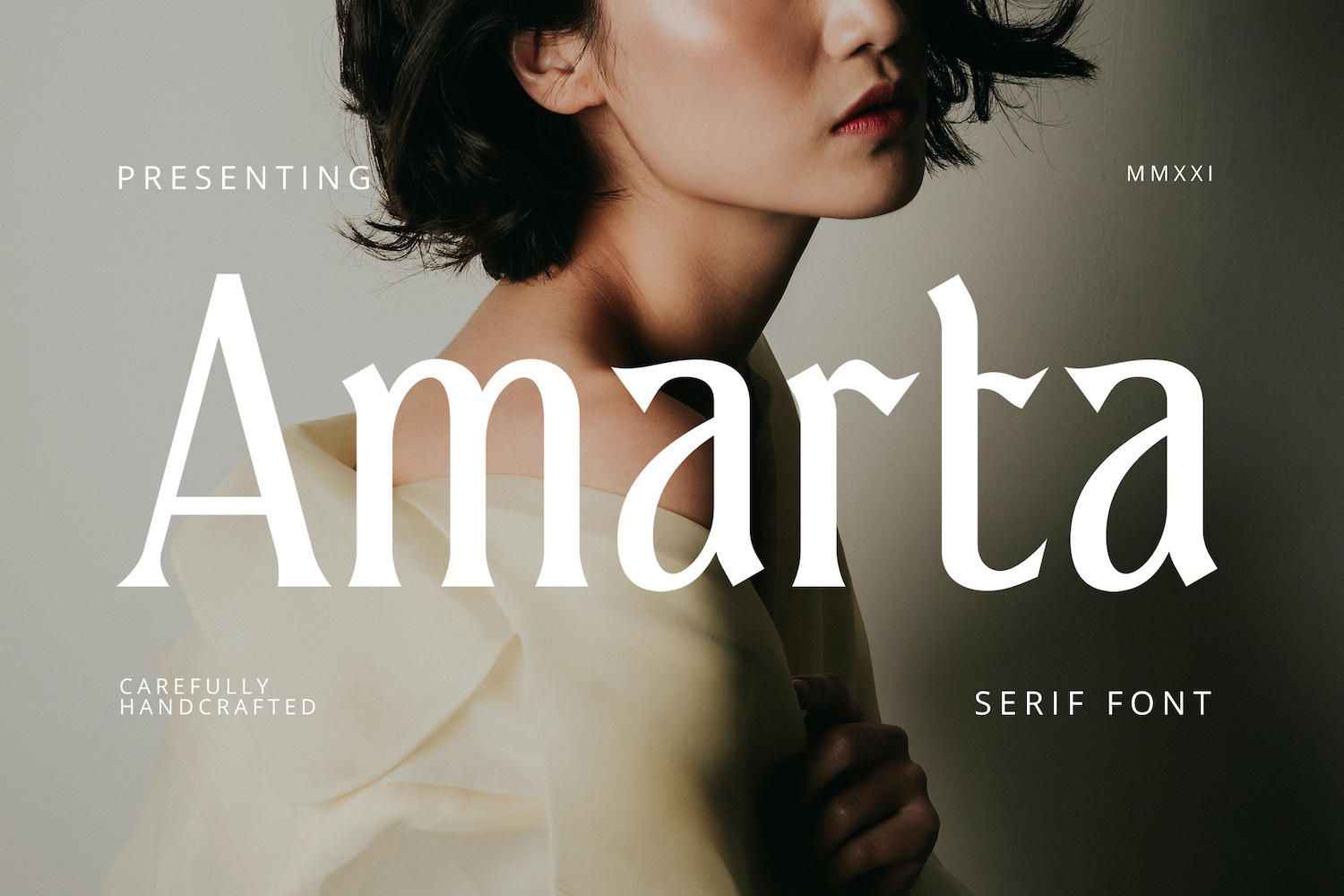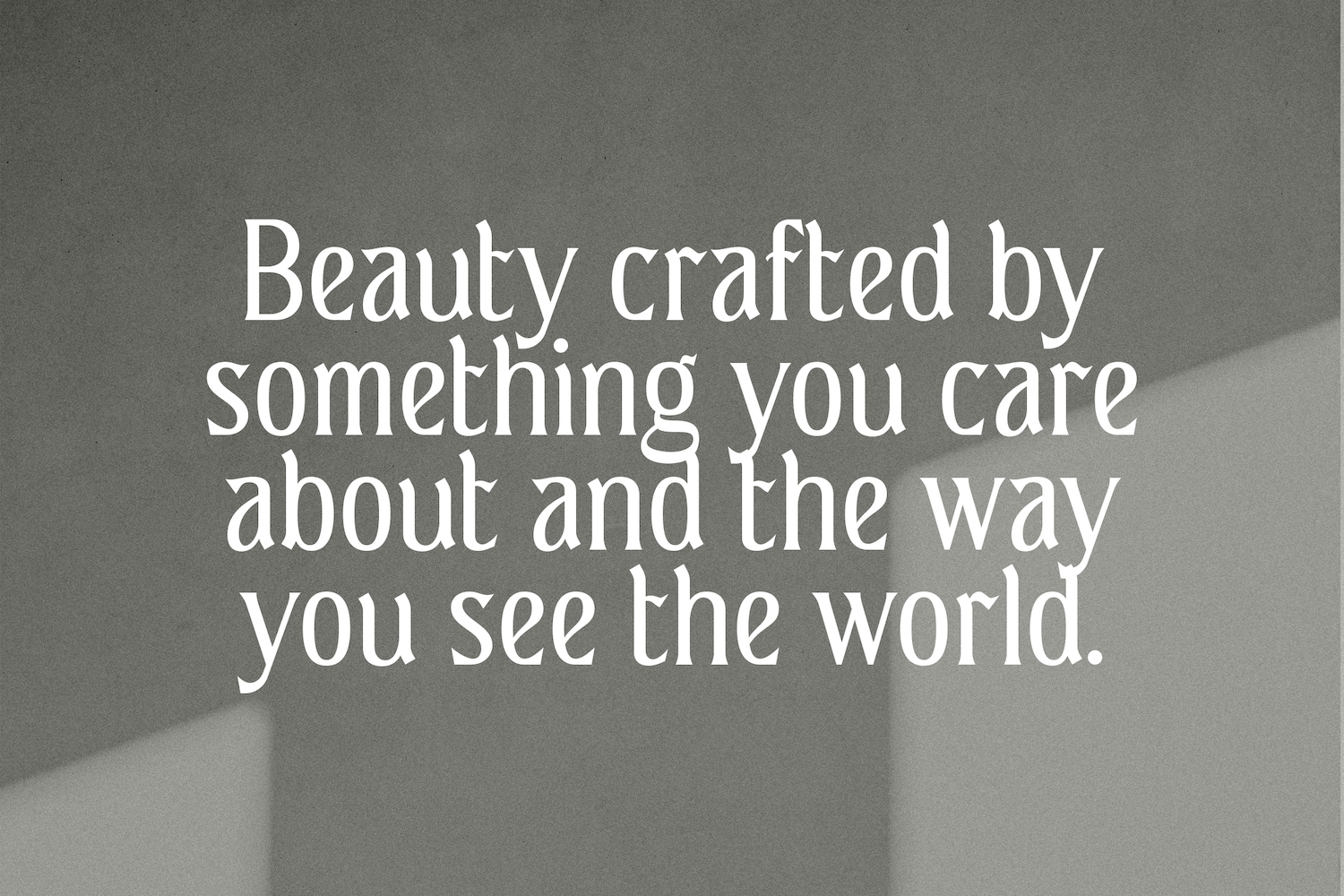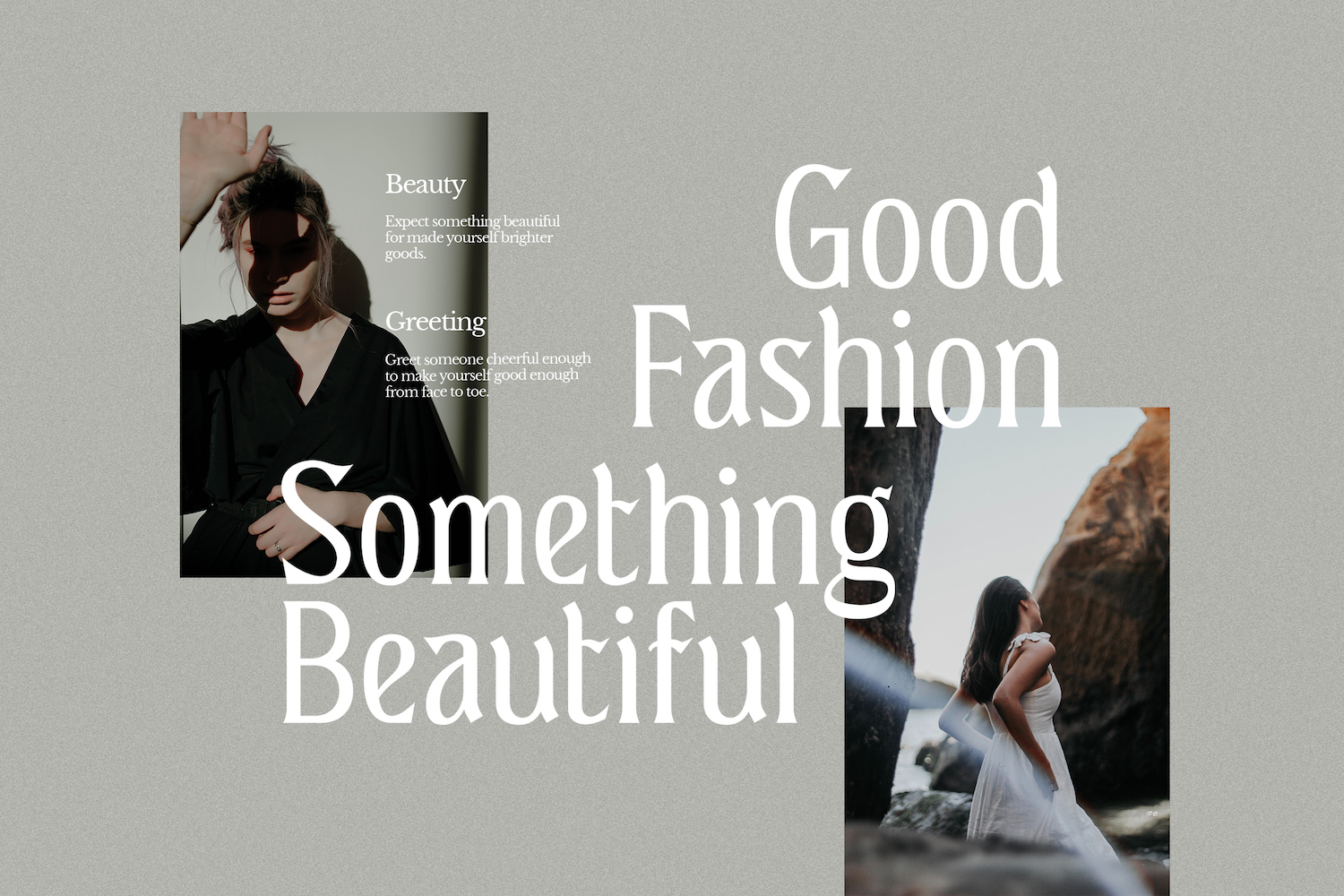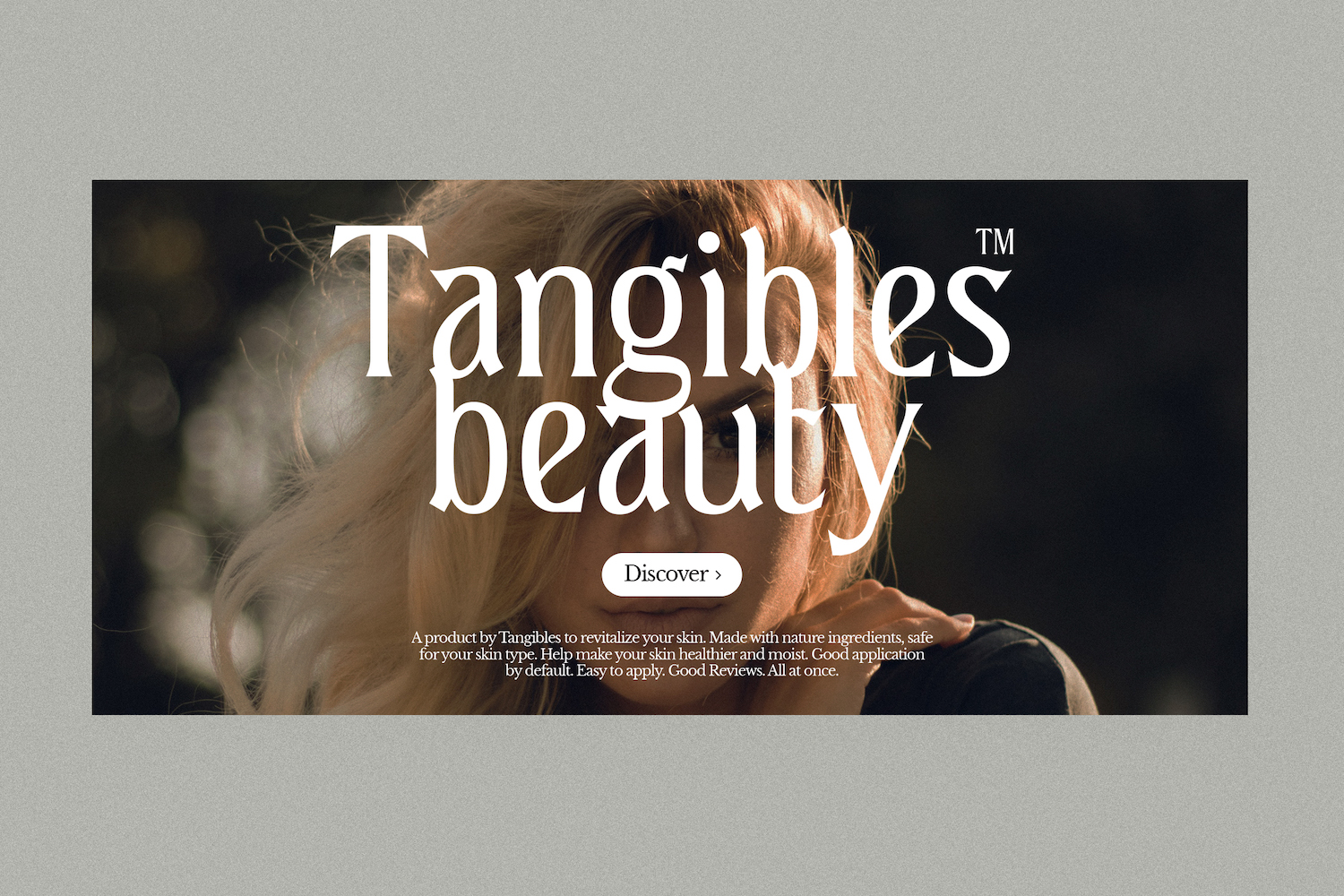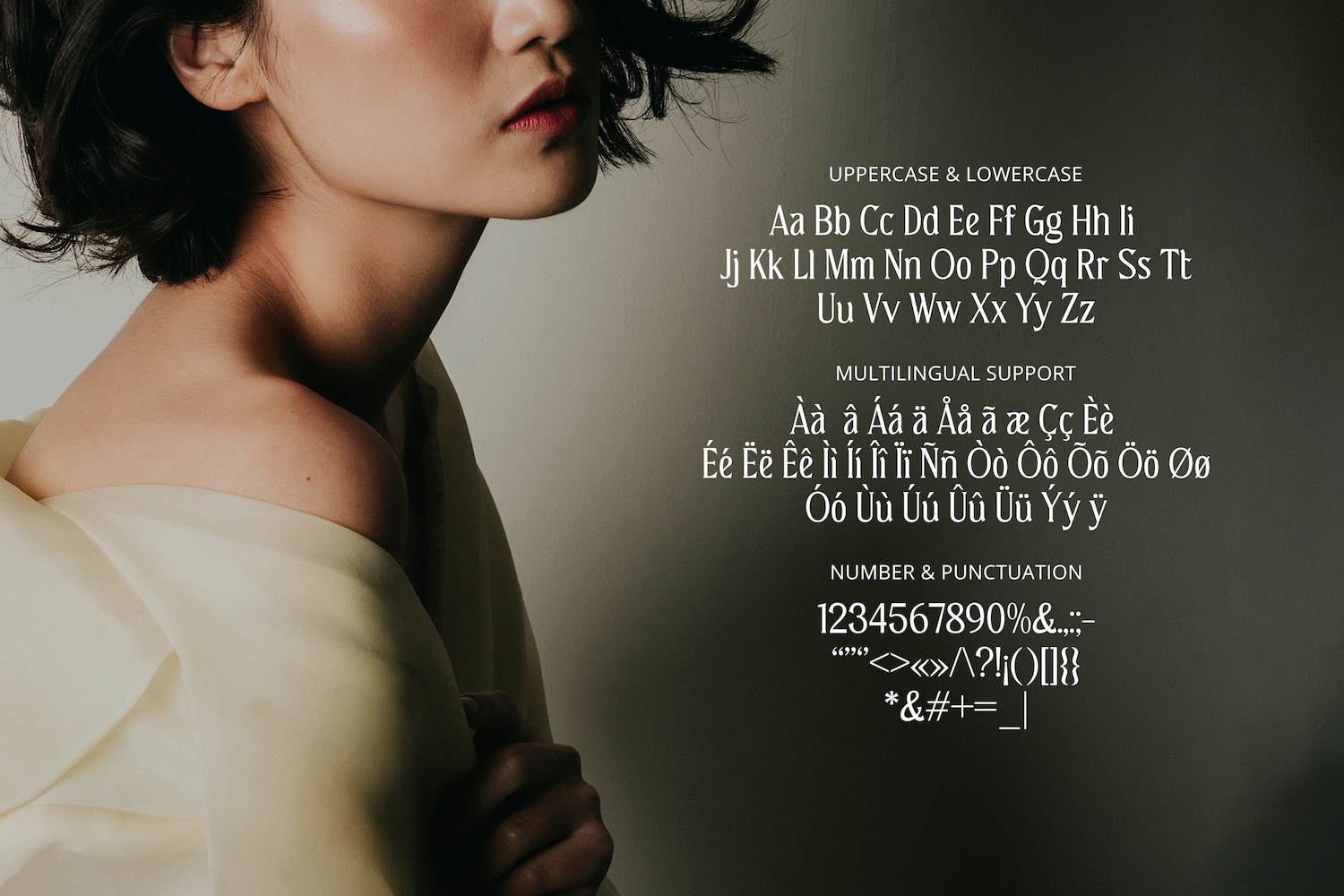
Amarta is a sophisticated serif font that exudes elegance and timeless charm. Carefully handcrafted, Amarta features distinct sharp serifs and subtle curves that bring a sense of modern refinement to any design. This font is perfect for fashion branding, luxury packaging, editorials, and creative projects that demand a high-end aesthetic.
With complete uppercase and lowercase letters, punctuation, numerals, and multilingual support, Amarta is both versatile and stylish. Its classic yet contemporary appearance makes it ideal for elevating your visual identity and creating standout typography in both print and digital formats.